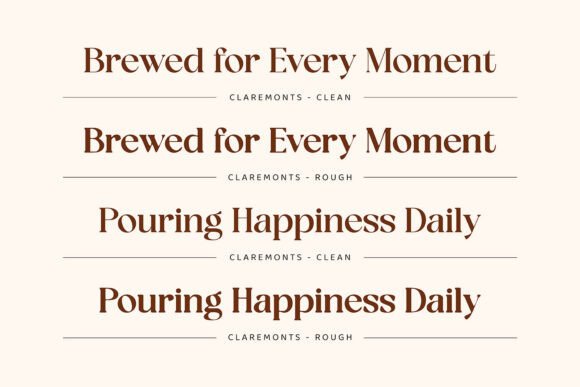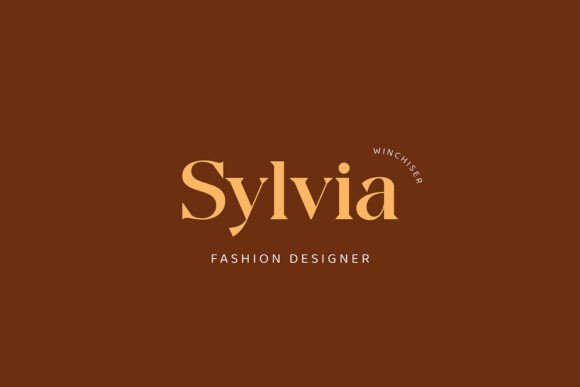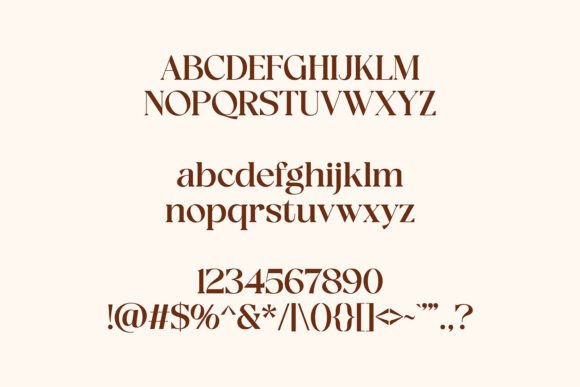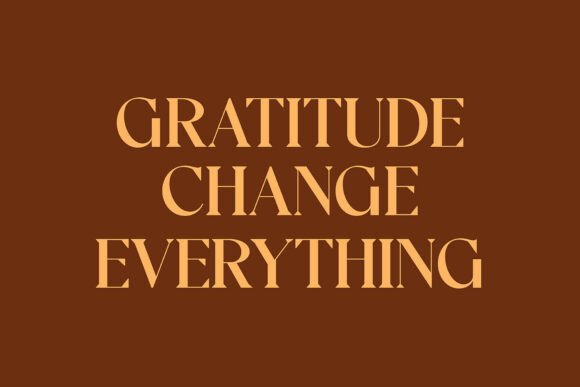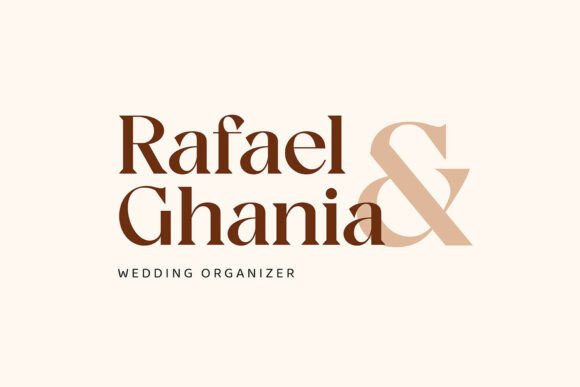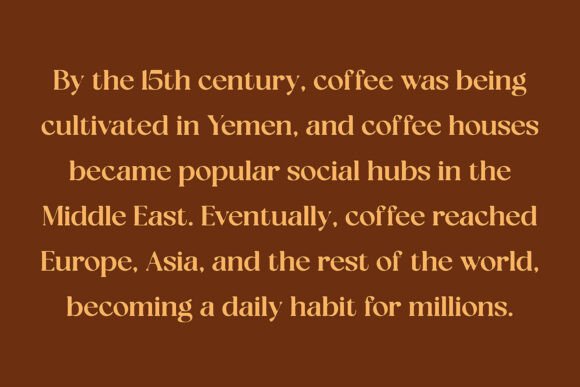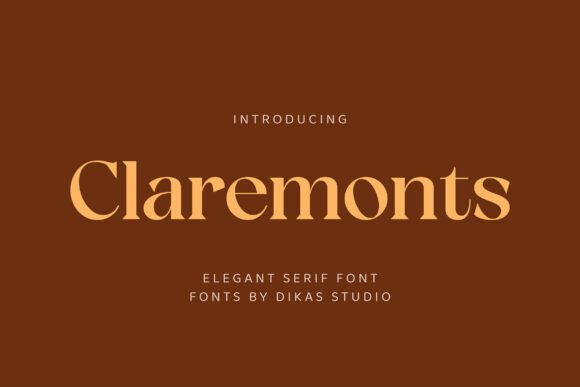
Introducing Claremonts Font: Elevate Your Designs with Bold Elegance
In the world of typography, a well-crafted font can make all the difference in elevating a design from ordinary to extraordinary. For designers and crafters seeking to add a touch of sophistication and impact to their projects, Claremonts Font is an exceptional choice. This bold serif font boasts elegant contrast details, making it perfect for a wide range of applications, from headlines and logos to fashion branding and editorial layouts.
The Essence of Claremonts Font
Claremonts Font is a thoughtfully designed bold serif typeface that exudes elegance and refinement. Its strong contrast shapes and carefully crafted letterforms create a sense of luxury and sophistication, making it an ideal choice for designers looking to add a touch of high-end style to their work. Whether you’re working on a poster, book cover, digital interface, or modern branding project, Claremonts Font is sure to make a lasting impression.
Key Features of Claremonts Font
So, what sets Claremonts Font apart from other serif fonts? Here are some of its key features:
- Bold and Elegant Design: Claremonts Font features a bold serif design with elegant contrast details, making it perfect for headlines, logos, and other high-impact applications.
- Versatile Typeface: The font includes one weight, along with a rough style and alternate characters, providing creative flexibility and versatility for designers.
- Wide Range of Applications: Claremonts Font is suitable for a variety of projects, including posters, book covers, digital interfaces, fashion branding, and editorial layouts.
Why Choose Claremonts Font?
With so many fonts available, why should designers and crafters choose Claremonts Font? Here are just a few compelling reasons:
- Unique and Memorable: Claremonts Font’s bold and elegant design makes it a standout choice for designers looking to create unique and memorable designs.
- High-Quality Typography: The font is carefully crafted to provide high-quality typography, ensuring that your designs look professional and polished.
- Easy to Read: Despite its bold design, Claremonts Font is easy to read, making it perfect for body text and other applications where legibility is essential.
Using Claremonts Font in Your Designs
So, how can you use Claremonts Font in your designs? Here are a few ideas to get you started:
- Headlines and Titles: Use Claremonts Font to create bold and eye-catching headlines and titles that grab attention and make a lasting impression.
- Fashion Branding: Claremonts Font is perfect for fashion branding, adding a touch of luxury and sophistication to your designs.
- Editorial Layouts: Use Claremonts Font to create elegant and refined editorial layouts that showcase your content in style.
Tips and Tricks for Getting the Most Out of Claremonts Font
To get the most out of Claremonts Font, here are a few tips and tricks to keep in mind:
- Experiment with Different Sizes: Claremonts Font looks great in a variety of sizes, from small body text to large headlines.
- Pair with Other Fonts: Try pairing Claremonts Font with other fonts to create interesting and dynamic typographic combinations.
- Use the Rough Style: The rough style of Claremonts Font adds a touch of texture and grit to your designs, making it perfect for creating unique and eye-catching effects.
| Font Name | Claremonts Font |
| Author | Dikas Studio |
In conclusion, Claremonts Font is an exceptional choice for designers and crafters seeking to add a touch of elegance and sophistication to their projects. With its bold serif design, elegant contrast details, and versatile typeface, Claremonts Font is perfect for a wide range of applications, from headlines and logos to fashion branding and editorial layouts. Whether you’re looking to create unique and memorable designs or simply want to elevate your typography, Claremonts Font is a must-have font for any designer or crafter.